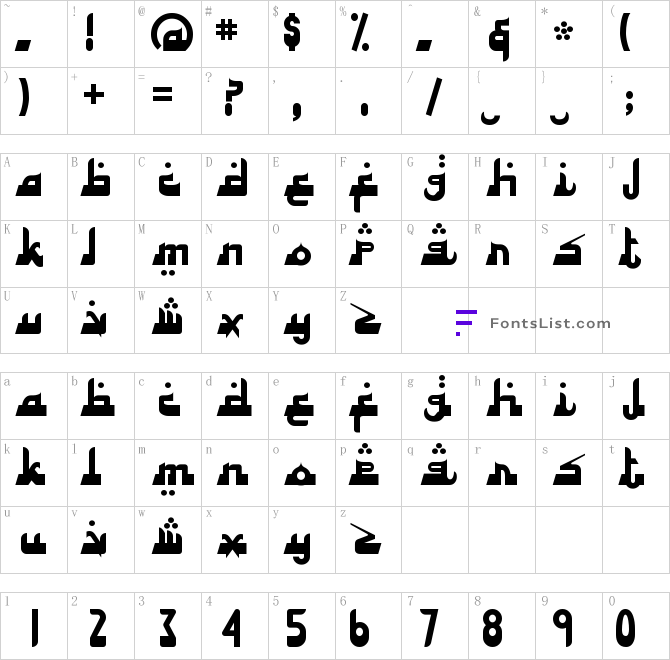
- Font Name:Alhambra Deep
Alhambra-Deep.ttf is a very beautiful artistic font, Alhambra-Deep.ttf is widely used in the design and printing of various books and pictures,Alhambra-Deep.ttf has a strong visual impact,Alhambra-Deep.ttf is a commonly used font in newspapers, magazines and books, and is used in posters, e-commerce Poster design, store design, logo design, font design and other fields.Alhambra-Deep.